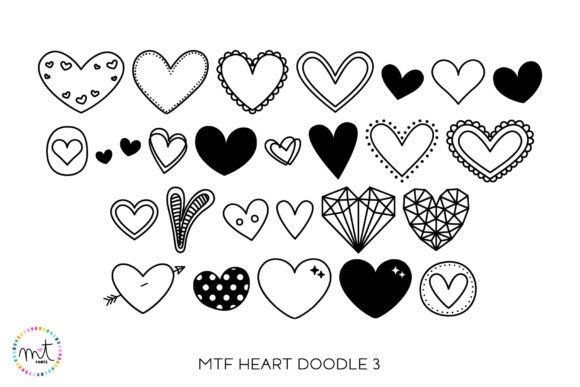
Welcome to the realm of love and affection, where hearts dance and emotions ignite! Allow us to introduce Heart Doodle 3, a captivating dingbat font designed to set your romantic creations ablaze.
With its 26 charmingly doodled characters, Heart Doodle 3 is the ultimate font for expressing your heartfelt sentiments. Whether you're crafting Valentine's Day cards, wedding invitations, or any love-inspired design, this font will effortlessly transform your words into captivating works of art.
Picture this: a love letter penned with Heart Doodle 3, its characters intertwining like the beating of two hearts, conveying the intensity of your emotions with every stroke. Or, imagine a wedding invitation adorned with this font, exuding an aura of elegance and romance that reflects the joy of your special day.
Heart Doodle 3 isn't just a font; it's a canvas for your emotions, an artistic medium that breathes life into your romantic expressions. It's the perfect choice for designers, crafters, and anyone seeking to add a touch of love and whimsy to their projects.